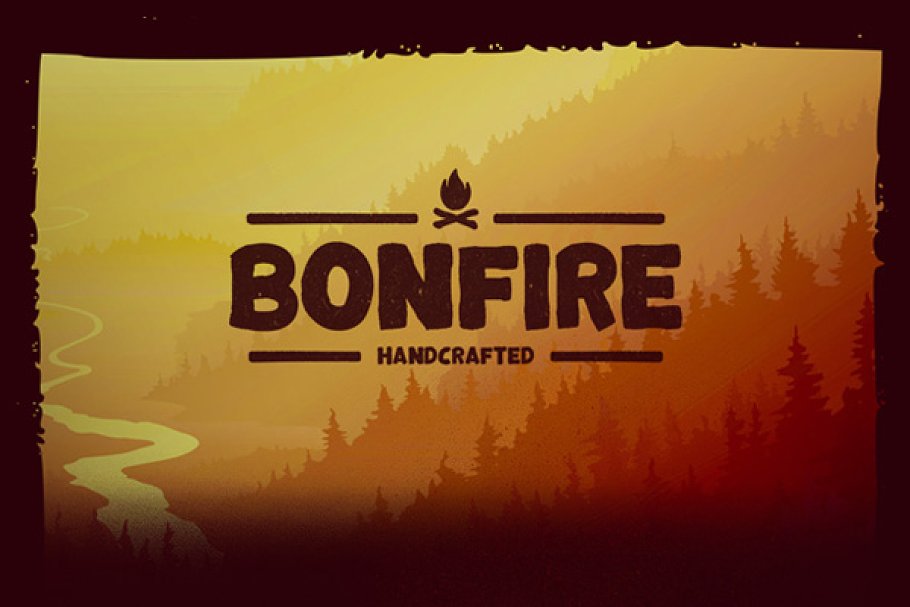
Get ready to add some spooky vibes to your Halloween designs with the Bonfire Typeface - the best font for a Halloween sign! Created by the talented designer Mehmet Tugcu, this font family is part of the Brush Font Bundle, which means you get not only a unique and eye-catching font but also additional camping and nature-related vectors to enhance your designs.
The Bonfire Typeface is perfect for those who want to add a touch of handcrafted charm to their designs. Its big, bold, and handmade style is available in regular and rough styles, making it suitable for a variety of projects. With English uppercase letters, numbers, and punctuation, you have everything you need to create stunning designs that capture the attention of your audience.
This font family is the perfect choice for Halloween designs, with its bold and striking style making it perfect for creating attention-grabbing posters, flyers, or social media graphics. The Bonfire Typeface is also versatile enough to be used for other design projects such as logos, branding, or merchandise.
Whether you're a professional designer or just starting, the Bonfire Typeface is a must-have in your font collection. With its unique and creative style, you can add a touch of personality and warmth to your designs, making them stand out from the crowd.